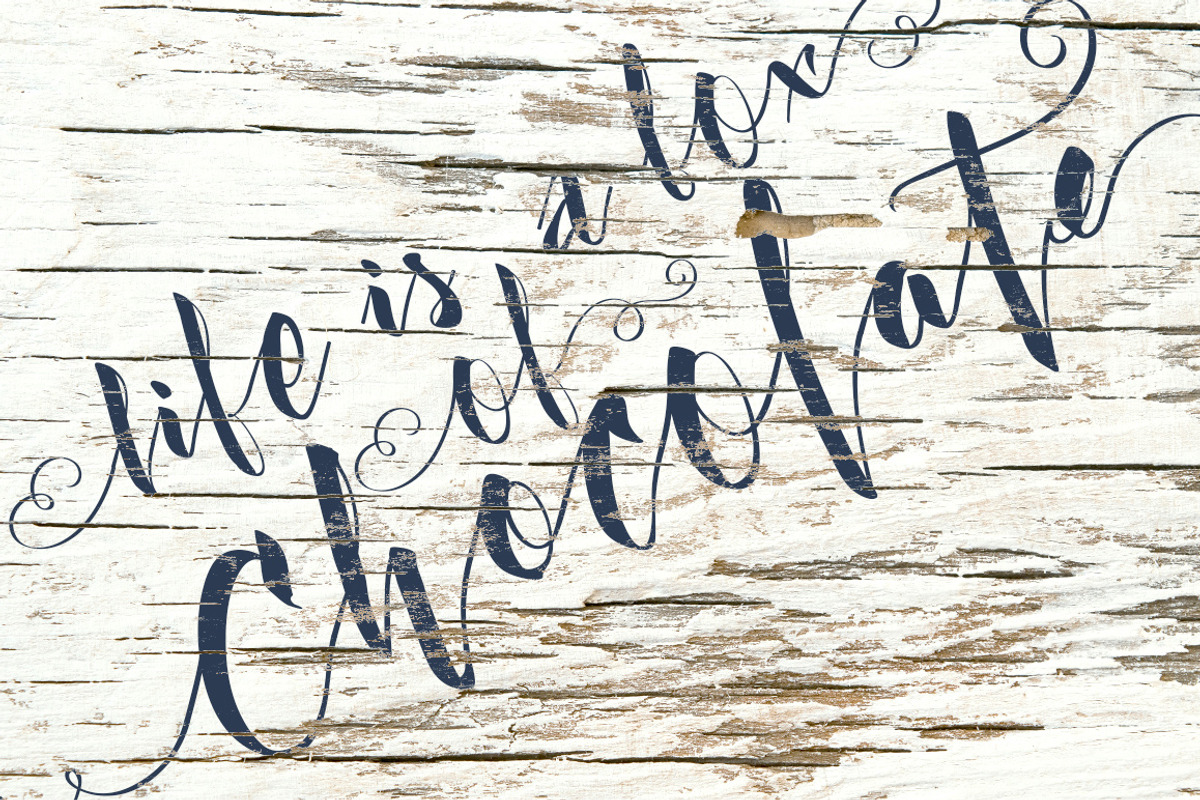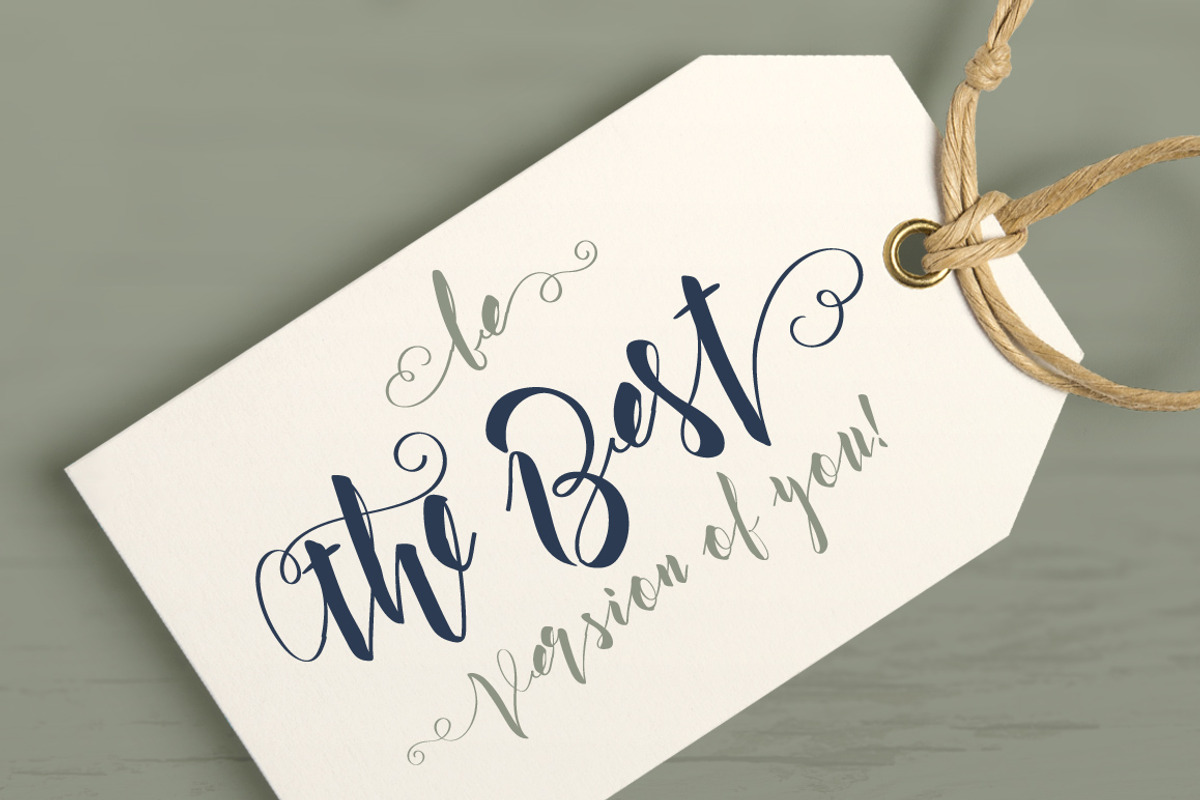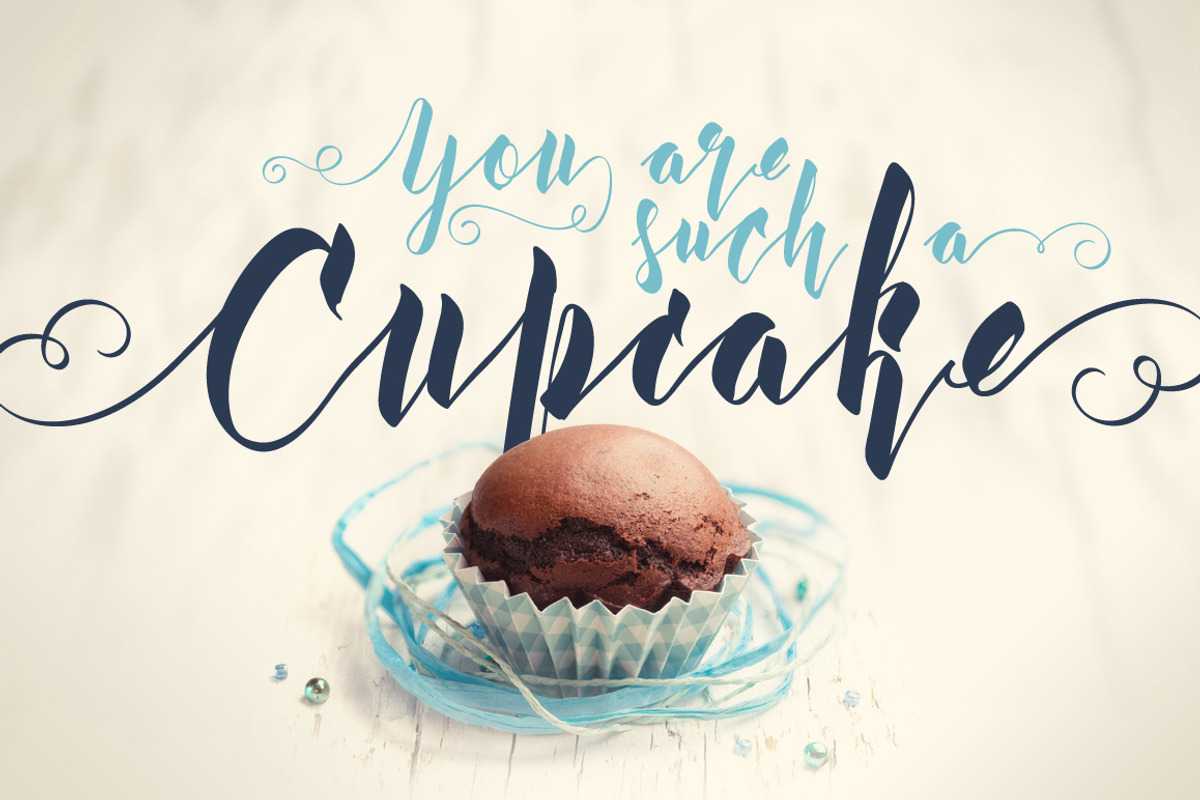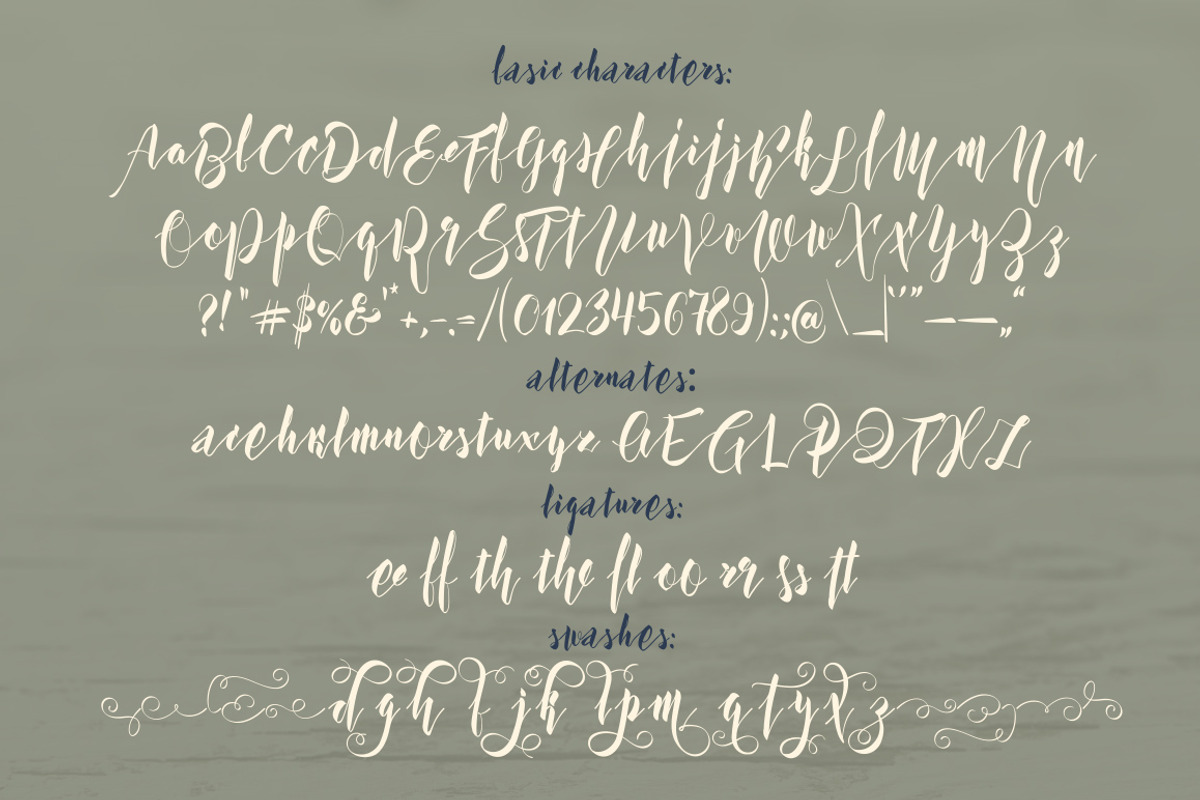
Kexman font + Cupcake photos
Kexman font + Cupcake photos by Gleb Guralnyk is a font selected for branding, posters, packaging, typography.
Note: This font contains only latin characters (all available characters you can see on 5th screenshot) Show More
Why Kexman font + Cupcake photos is worth a look
Kexman font + Cupcake photos by Gleb Guralnyk fits naturally into Branding, posters, packaging, typography.